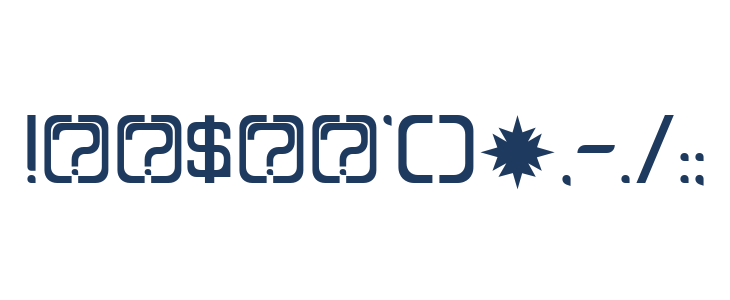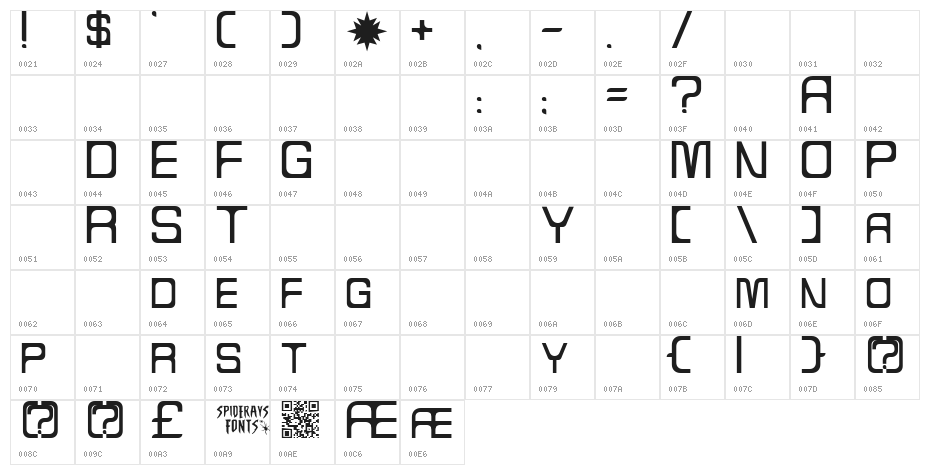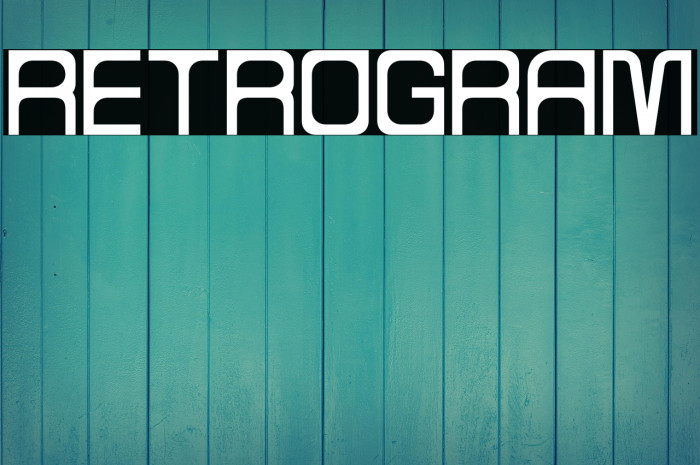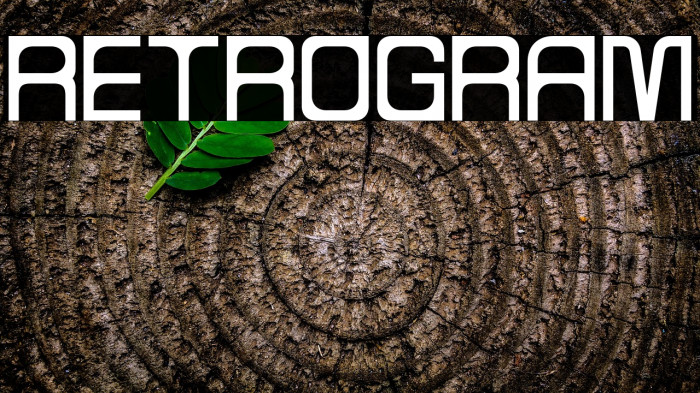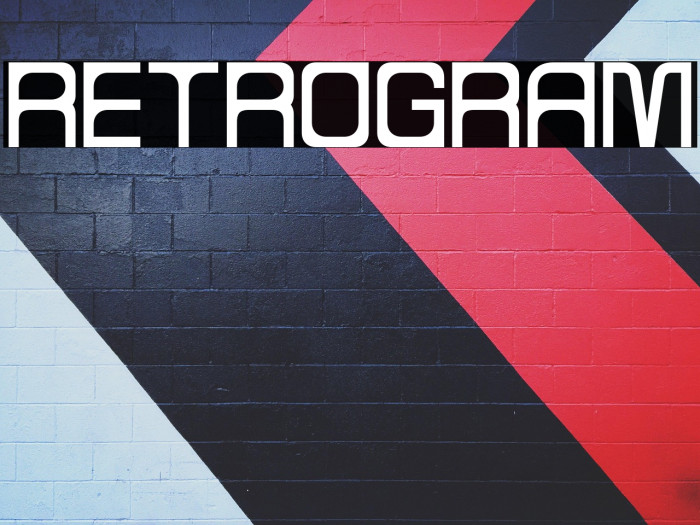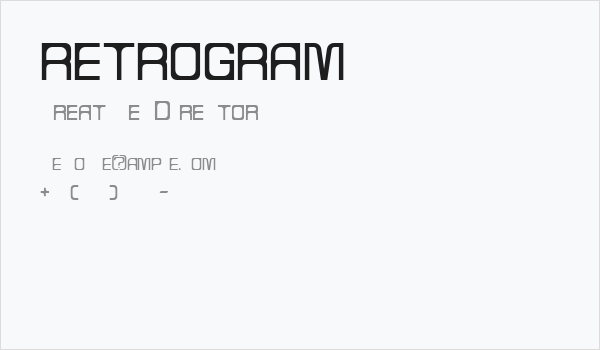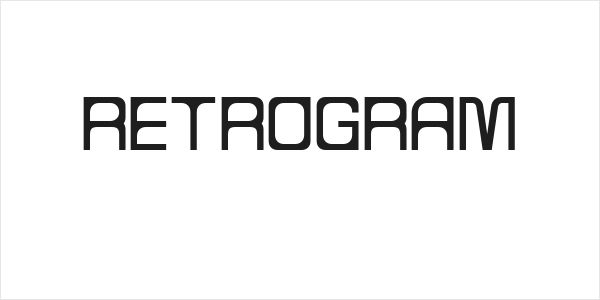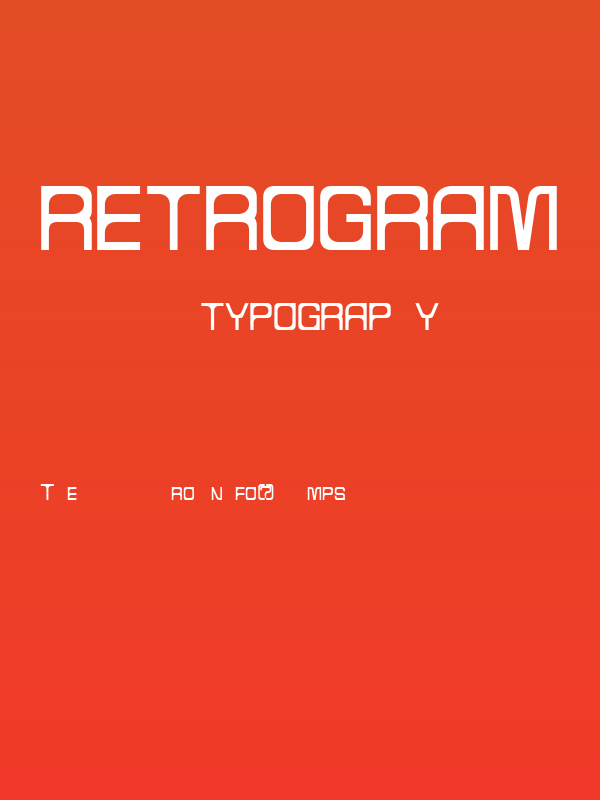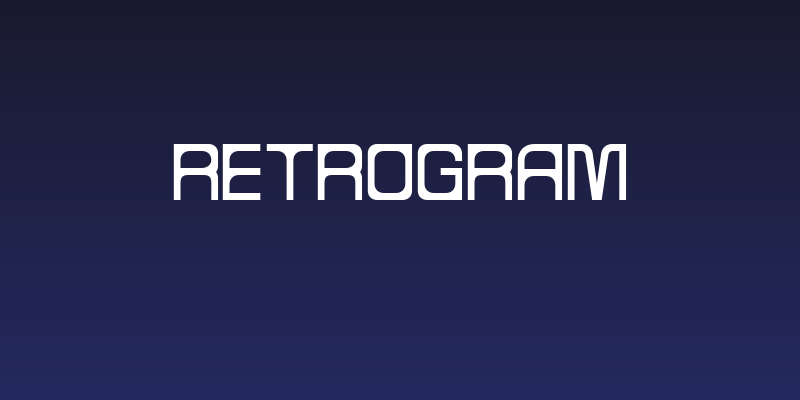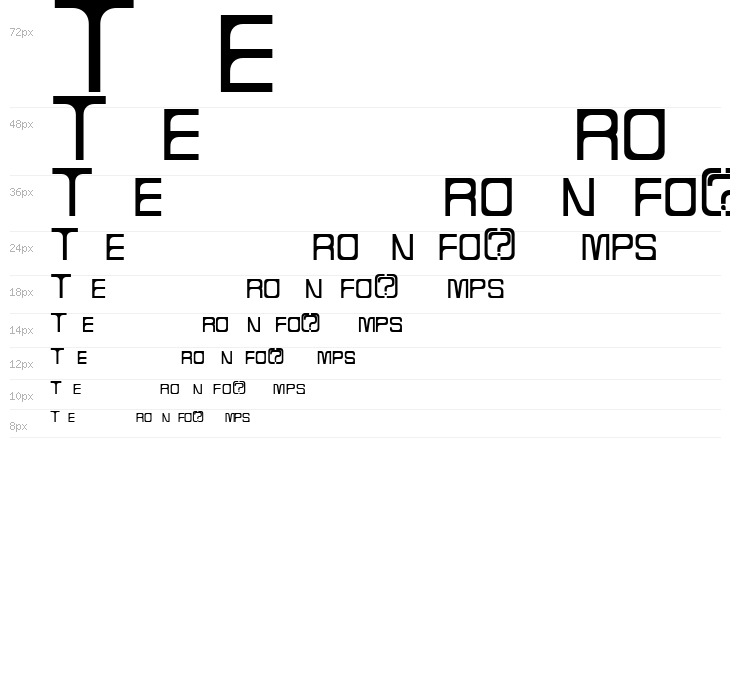
RETROGRAM Font
RETROGRAM Description
This font features a distinct retro-futuristic style, characterized by geometric shapes and a clean, minimalistic design. The uppercase letters have a uniform height with rounded edges, giving them a sleek and modern appearance. The lowercase letters maintain the same geometric consistency, enhancing readability while retaining a unique aesthetic. The numerals are bold and clear, matching the overall style of the alphabet. Special characters are creatively designed, adding a playful yet sophisticated touch. This font is ideal for projects that require a vintage yet modern look, such as branding, posters, and digital media.
| Overall Style | Retro-Futuristic |
| Proposed Projects | Ideal for branding, posters, digital media, and any project requiring a vintage-modern aesthetic. |